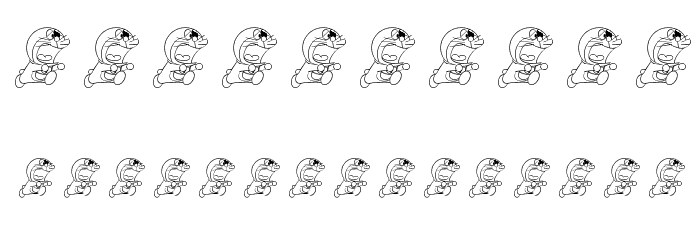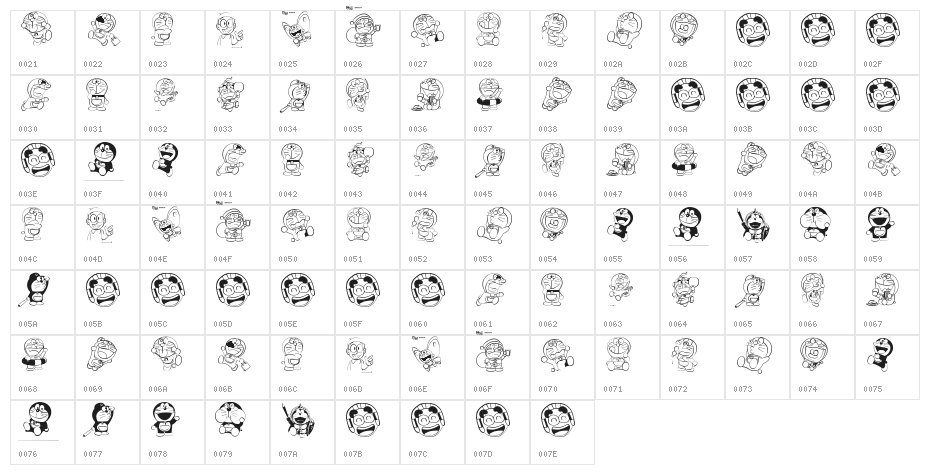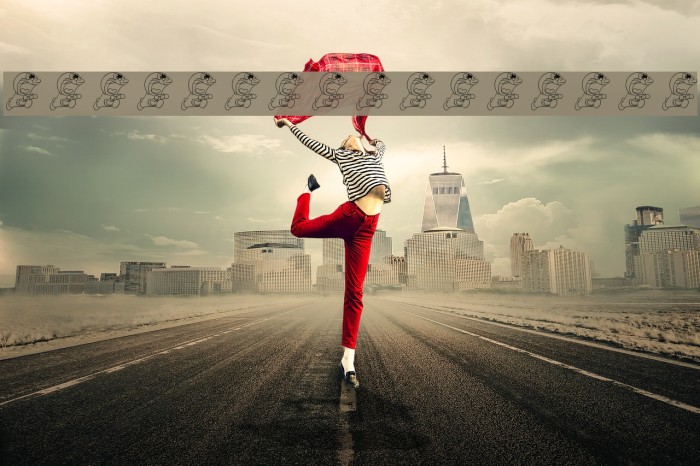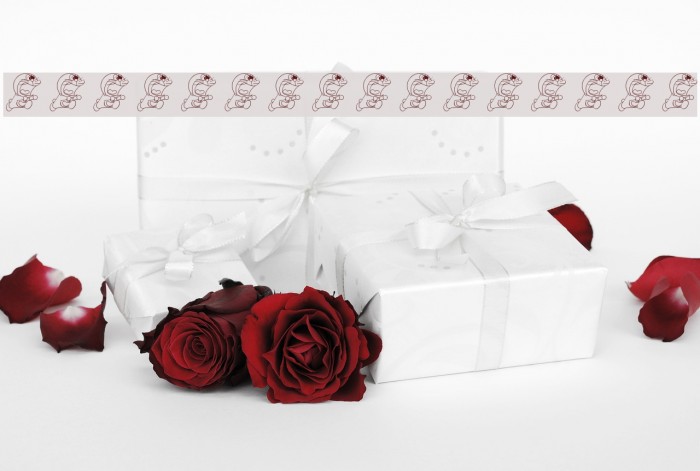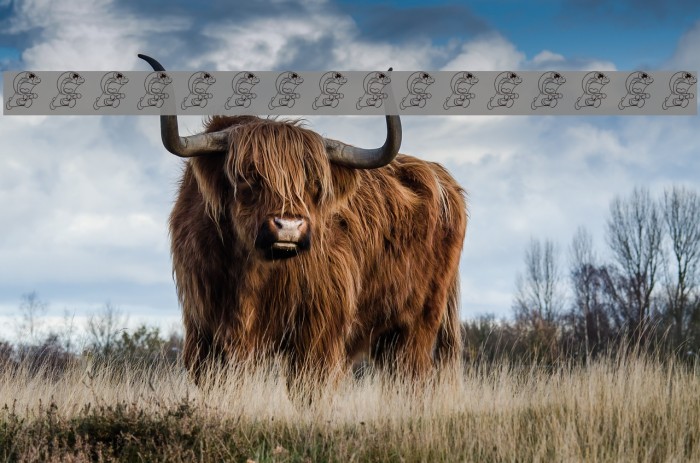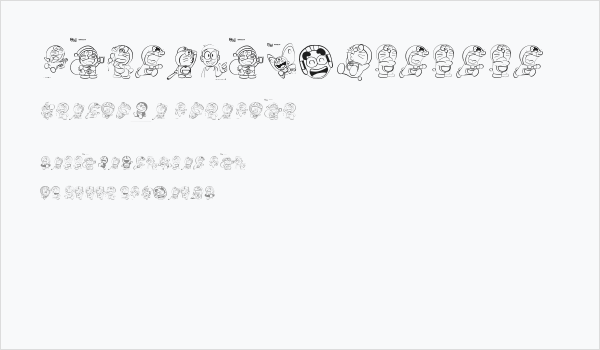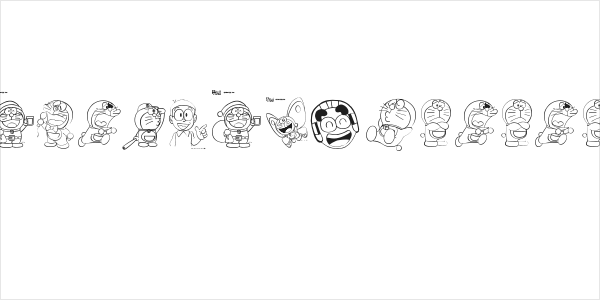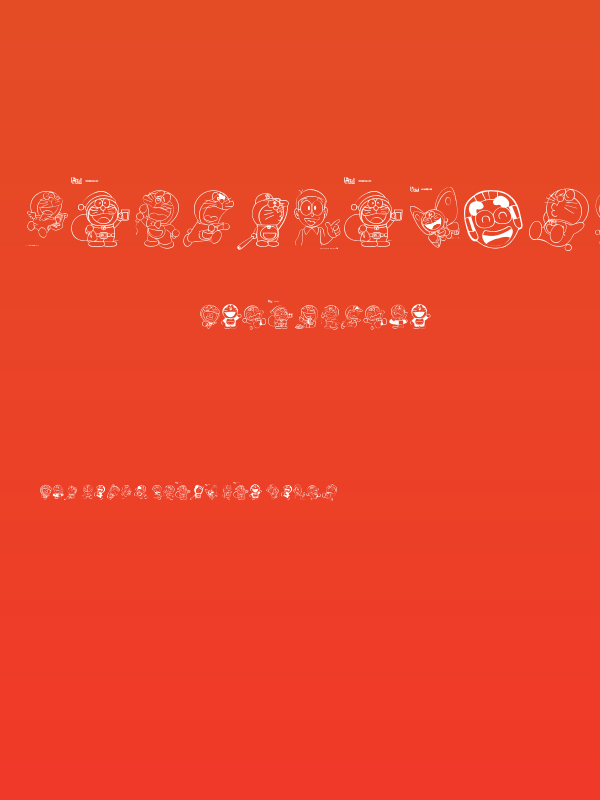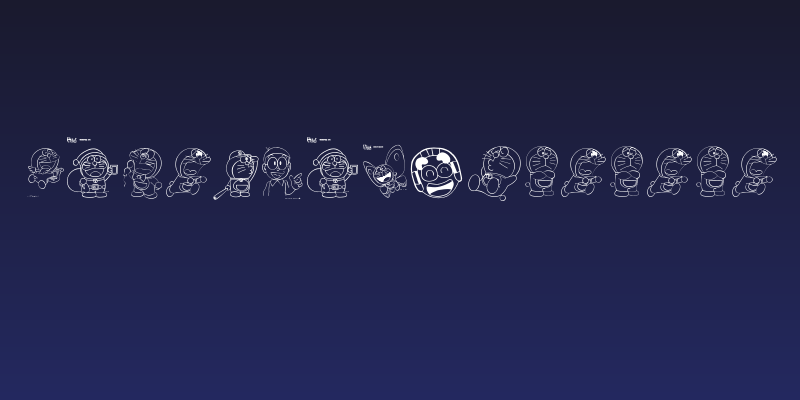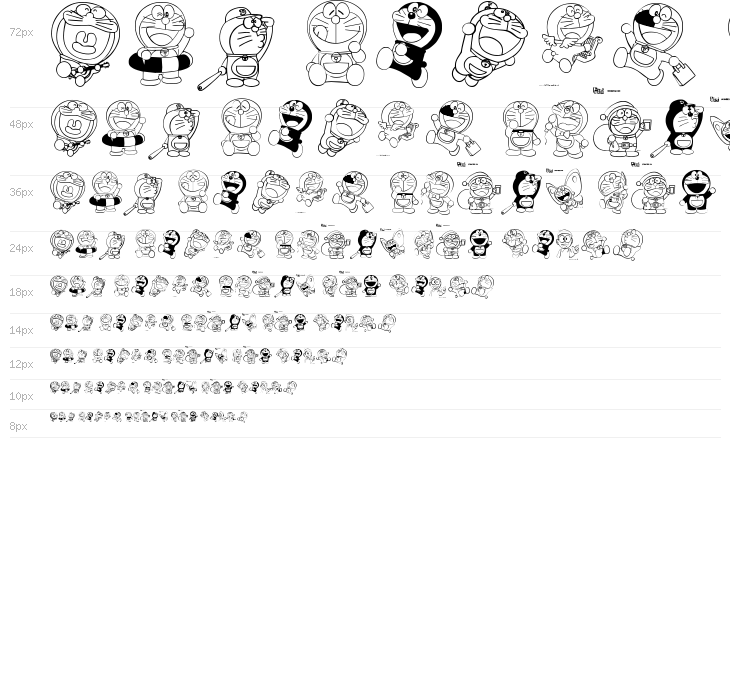
Doraemon-slalala Font
Doraemon-slalala Description
This image contains repeated cartoon character illustrations rather than a traditional font with alphanumeric or symbol glyphs. The characters are consistent in style and line weight, but do not represent a typeface.
| Overall Style | Illustrative, Cartoon |